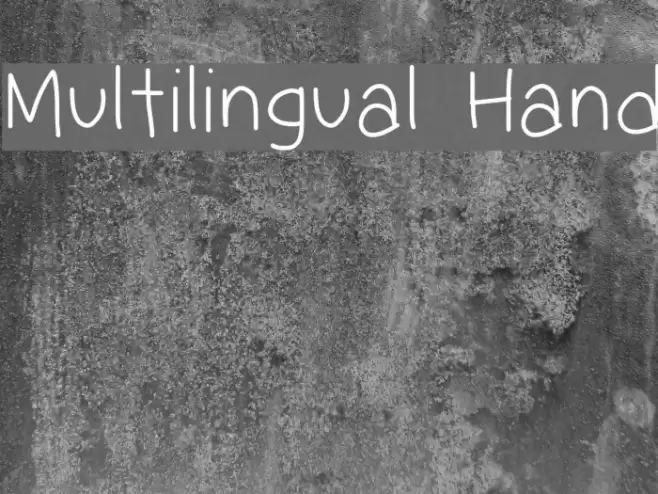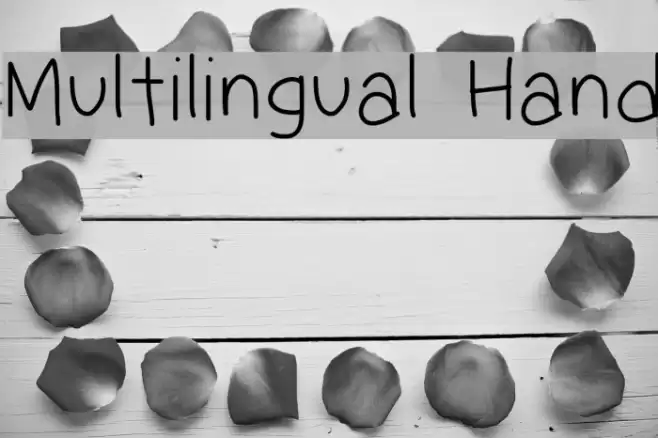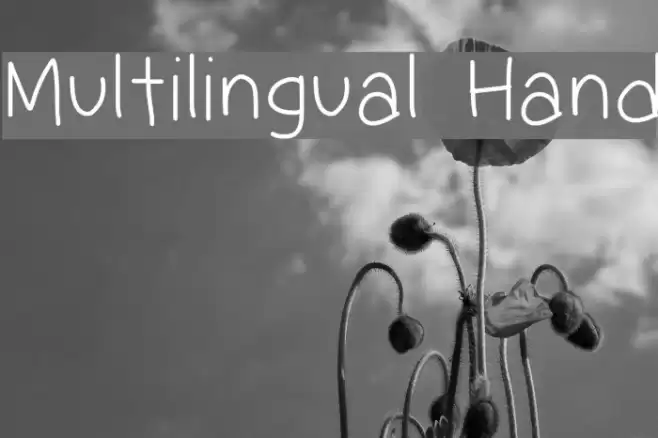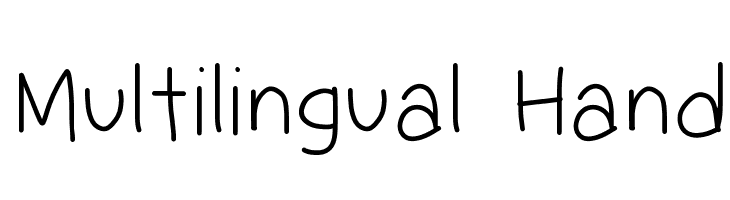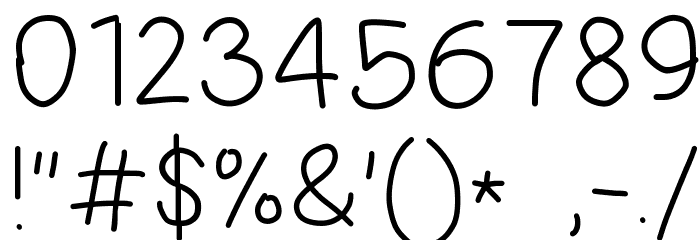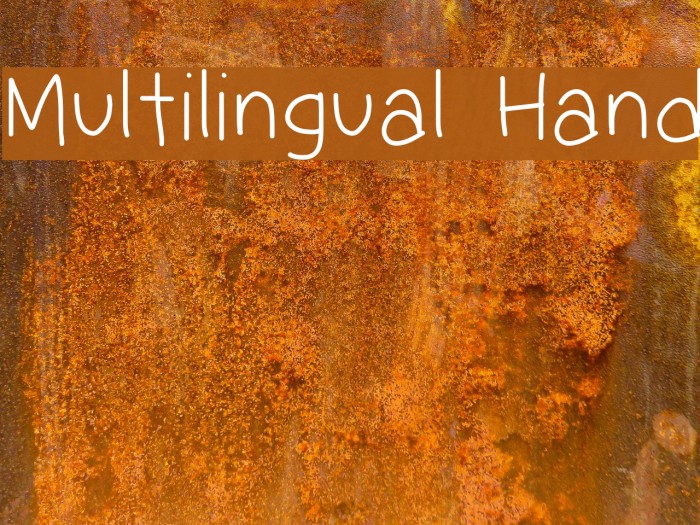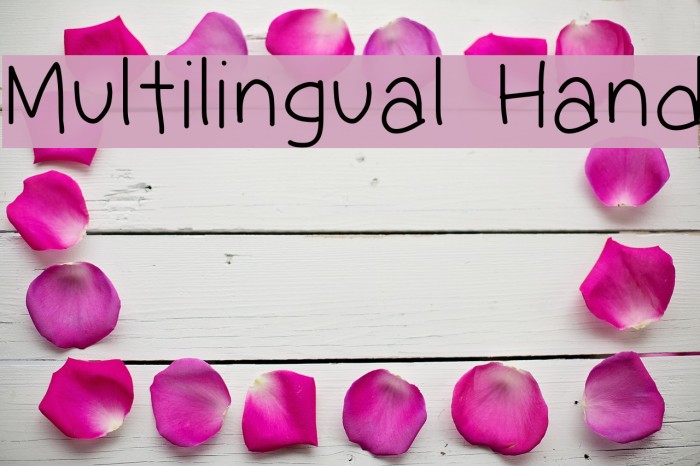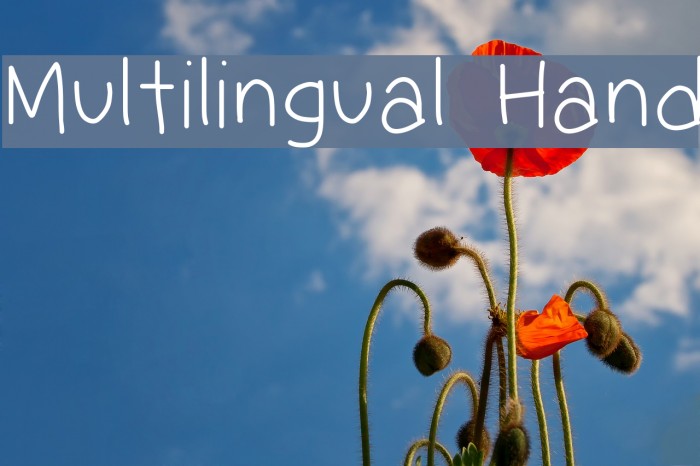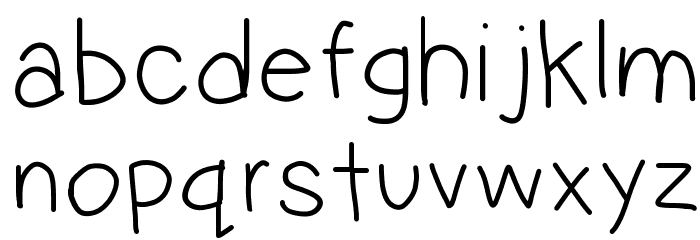
Multilingual Hand Font
Multilingual Hand Description
This playful and informal font features a handwritten style with a casual and friendly appearance. The characters are slightly irregular, adding to its charm and approachability. The uppercase and lowercase letters maintain a consistent flow, while the numerals and special characters complement the overall style. The strokes are smooth and rounded, giving it a soft and welcoming feel. This font is perfect for projects that require a personal touch or a relaxed atmosphere, making it ideal for invitations, greeting cards, and children's books.
A playful handwritten font with a casual and friendly style from Handwritten fonts.
- Proposed Projects: Ideal for invitations, greeting cards, children's books, and informal branding.
- Overall Style: Casual
- Use Case: Headlines, Informal text, Personal projects